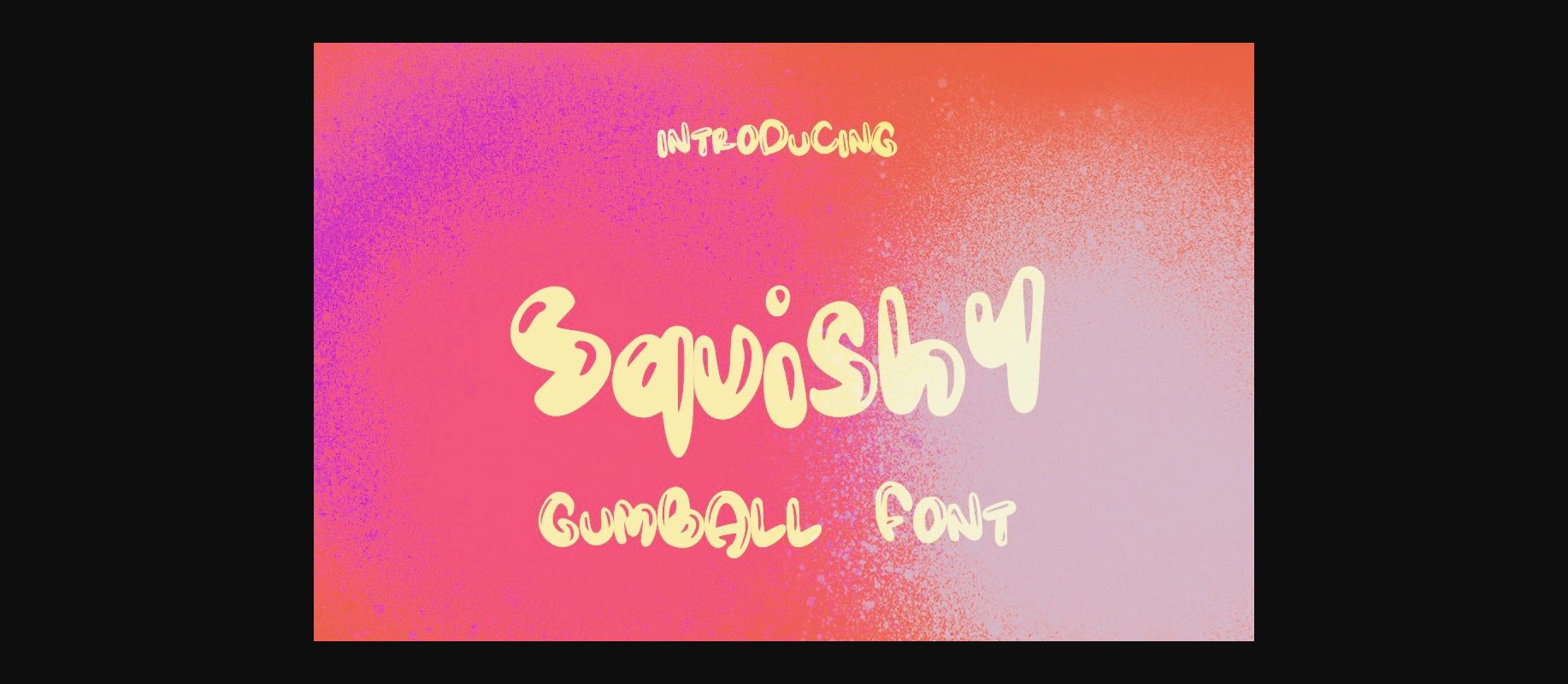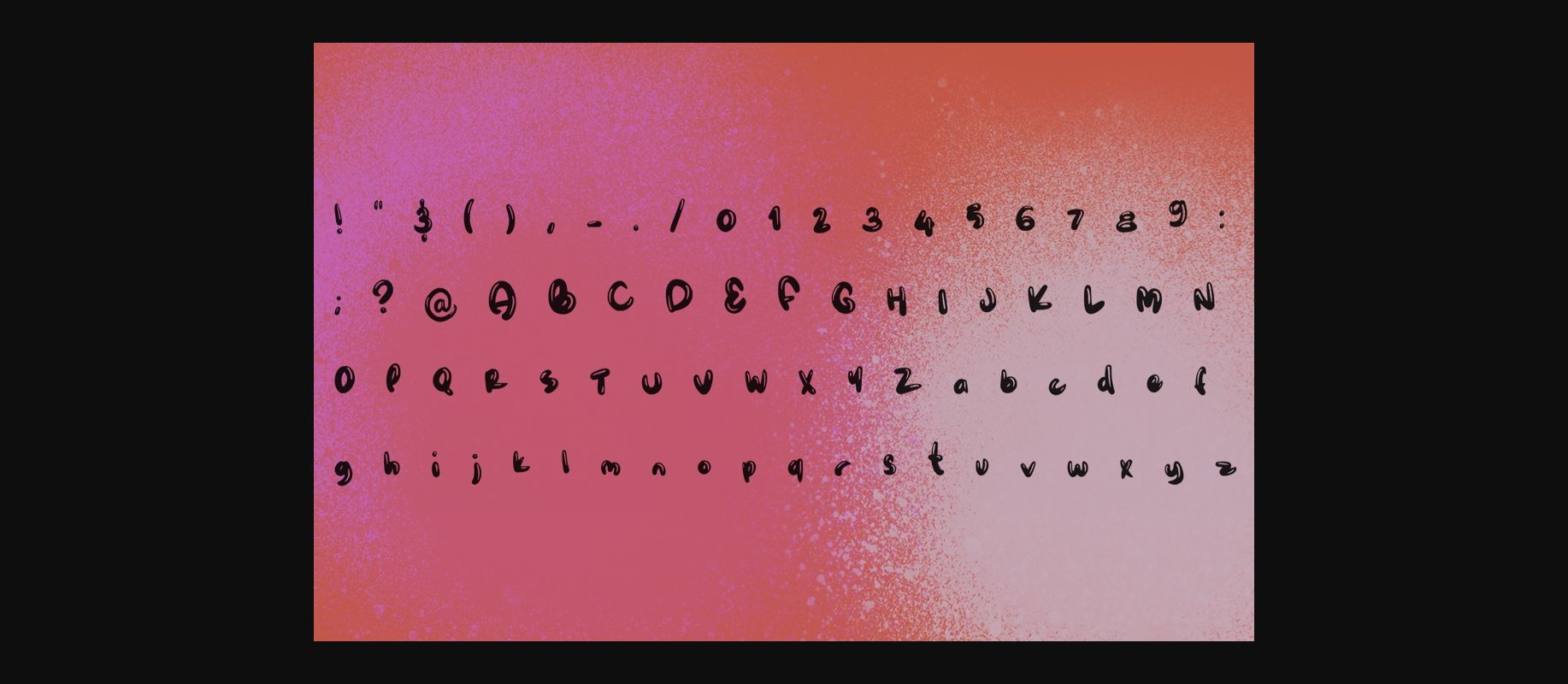
Squishy Font
About Squishy Font
Evoking the looks of bubbles and gumballs, Squishy is a playful and sweet decorative font with a bold feel. Use it to turn any design idea into a true standout!